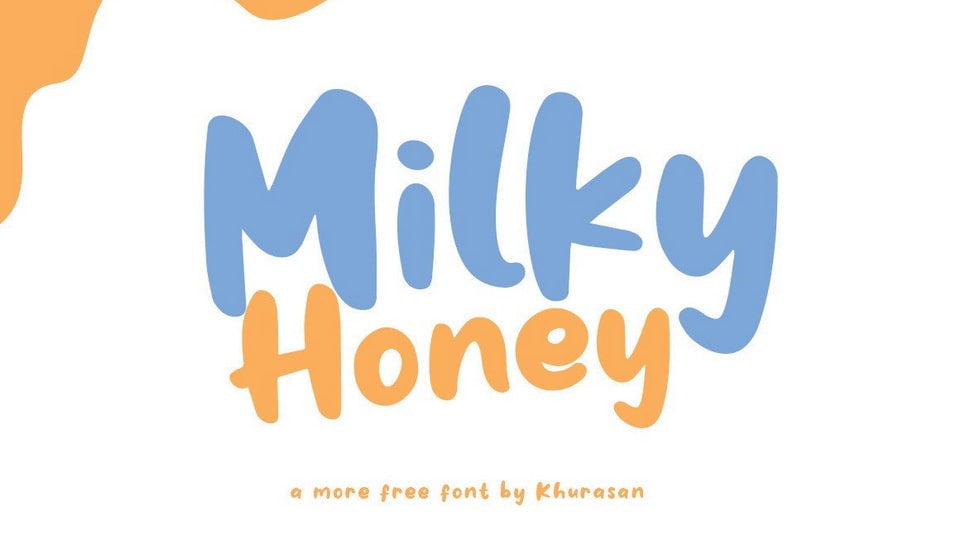
Download Milky Honey font, a lovely and cute handwritten typeface. Milky Honey is perfect for posters, logos, magazines, book covers, banners, and many more.